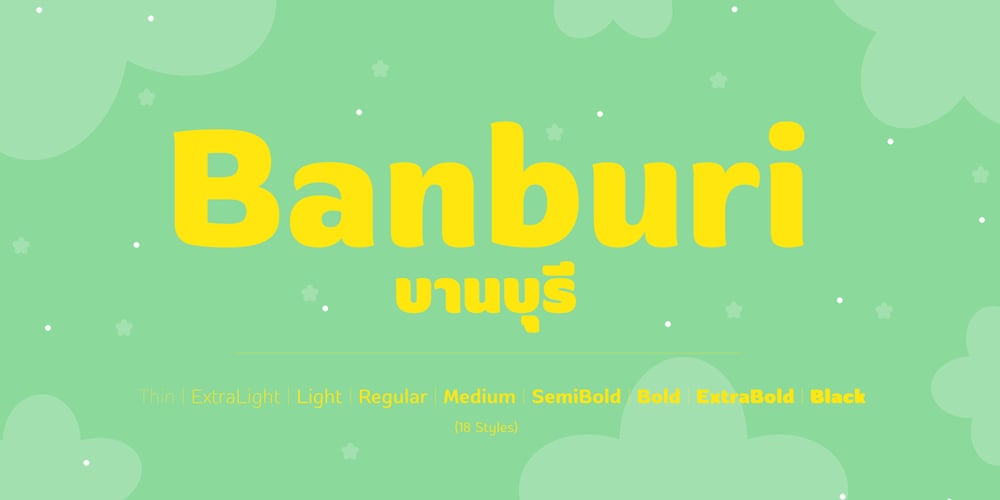
Banburi Font Family was designed by Anupap Jaichumnan and published by Jipatype. Banburi contains 18 styles and family package options. Banburi is a striking sans serif display font typeface, offering an extensive collection of 18 distinct styles. Its name, derived from the Thai word for the Allamanda flower, reflects the font’s graceful and captivating essence.